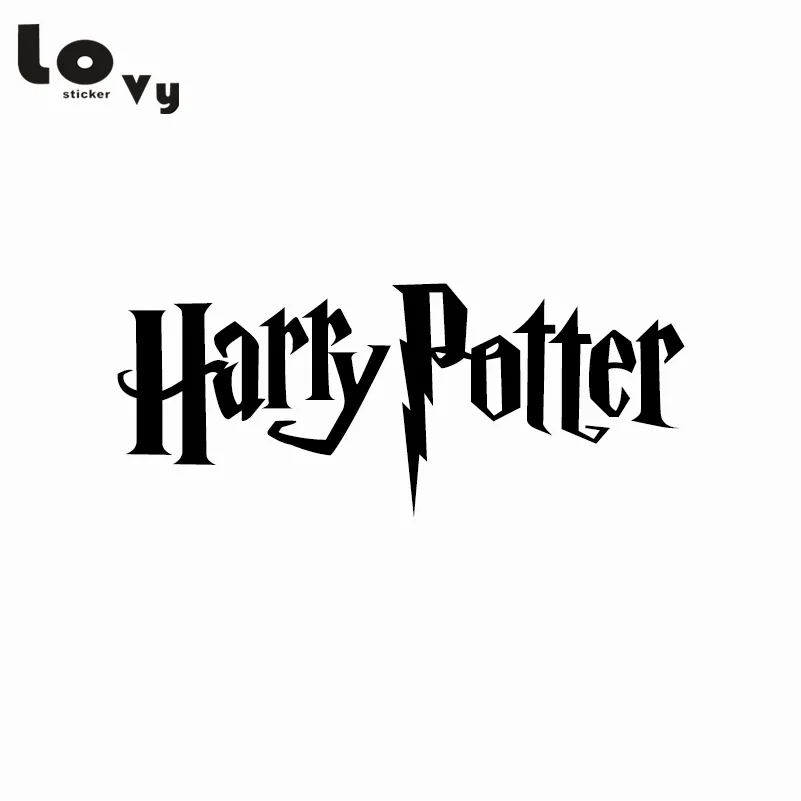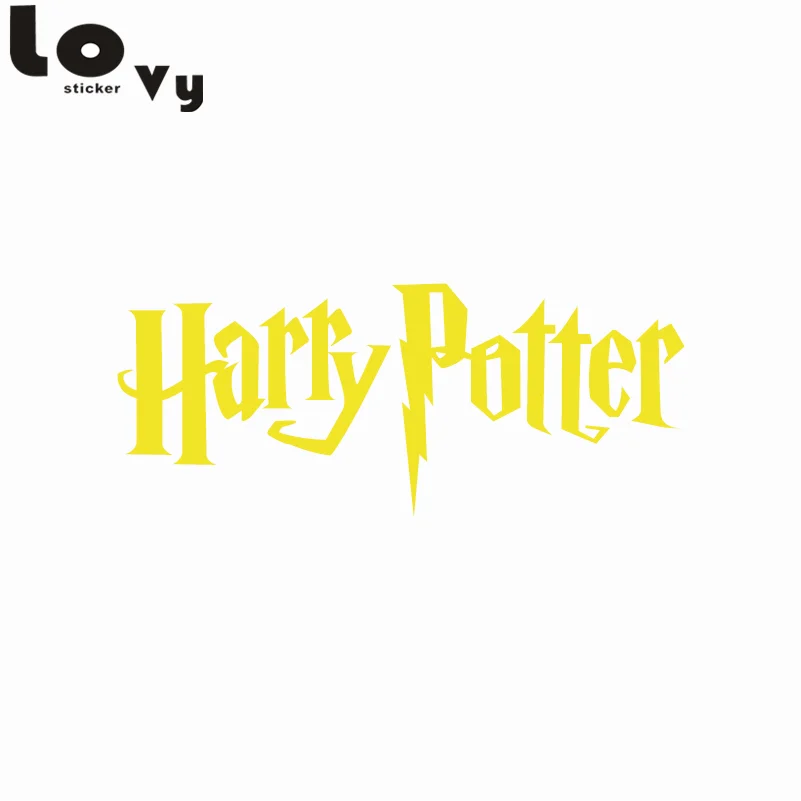
Font Harry Potter Text
The Wizarding World is rich with typographic goodness Read on to explore and download from our eclectic collection of free Harry Potter and Fantastic Beasts inspired fonts — perfect for that next newsletter, craft or graphic design project.
Font harry potter text. Collection of fonts for Harry potter Personal Use Free 171 downloads. The "Text Generator" section features simple tools that let you create graphics with fonts of different styles as well as various text effects;. The one utilized in its chapter titles and web page numbers are the “Able” font, and the handwriting of Rubeus Hagrid seems like “Felt Tip Roman” Harry Potter Font The Harry P font bears a resemblance to the artistic variations seen within the.
The prime usage of the Harry Potter fonts is for a stylishly designed cover page along with the heading and titles Some of the font styles of this font set are amazing for inside text and captions Some of the font styles of this font set are amazing for inside text and captions. Fonts Harry P is the earliest and most popular recreation of the Harry Potter film logo, which is itself inspired by Lumos Lumos is a typeface inspired by the chapter titles in the US editions of the Harry Potter books It also includes Magical Me (also known as Parry. Font Meme is a fonts & typography resource The "Fonts in Use" section features posts about fonts used in logos, films, TV shows, video games, books and more;.
Harry Potter font here refers to the font used in the Harry Potter novel series Harry Potter is a novel series written by the British author J K Rowling 6 Free Harry Potter Fonts · 1001 Fonts. Question Especially in Order of the Phoenix, I really like the font used for the British (original) versions of the Harry Potter books but can't find what it is. While each font was likely a commercial font created specifically for the books and movies, there is a free font available today that mimics the look of the most highly recognized Harry Potter font The free Harry Potter font is called “Harry P” and was created by an artist named Graham Meade with Phoenix Phonts, based in Australia.
Collection of fonts for Harry potter Personal Use Free 171 downloads. Text Font Generator This text font generator allows you to convert normal text into different text fonts that you can copy and paste into Instagram, Facebook, Twitter, Twitch, YouTube, Tumblr, Reddit and most other places on the internet The different text fonts are all a part of the Unicode standard which means that they're not like normal. Harry Potter Font by Fontomen Updated Sep 17, 07 Harry Potter Regular Style truetype 59 glyphs 60 characters Collect Share Designed by Fontomen About Harry Potter Font Free Download Licensed as Freeware, NonCommercial Donations Donate.
Font Meme is a fonts & typography resource The "Fonts in Use" section features posts about fonts used in logos, films, TV shows, video games, books and more;. ‘Magik’ font Create magical ‘Harry Potter’ themed text with the ‘Magik’ font ‘The Daily Prophet’ font Create your own Wizarding World newspaper headlines with ‘The Daily Prophet’ font Harry Potter Fan Zone (HPFZ) is an Australian Harry Potter fan site established in 03. Nov 25, 19 Explore 💜Fangirl༺'s board "Harry potter font" on See more ideas about harry potter, harry potter drawings.